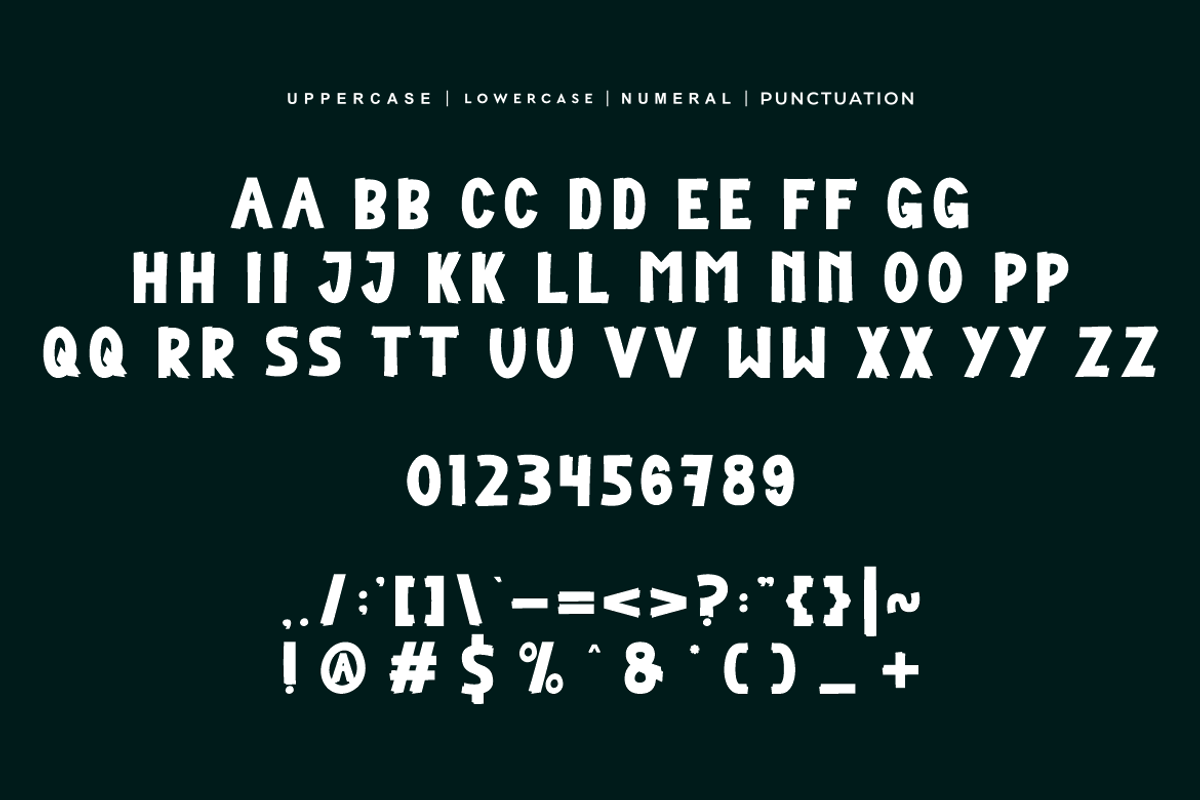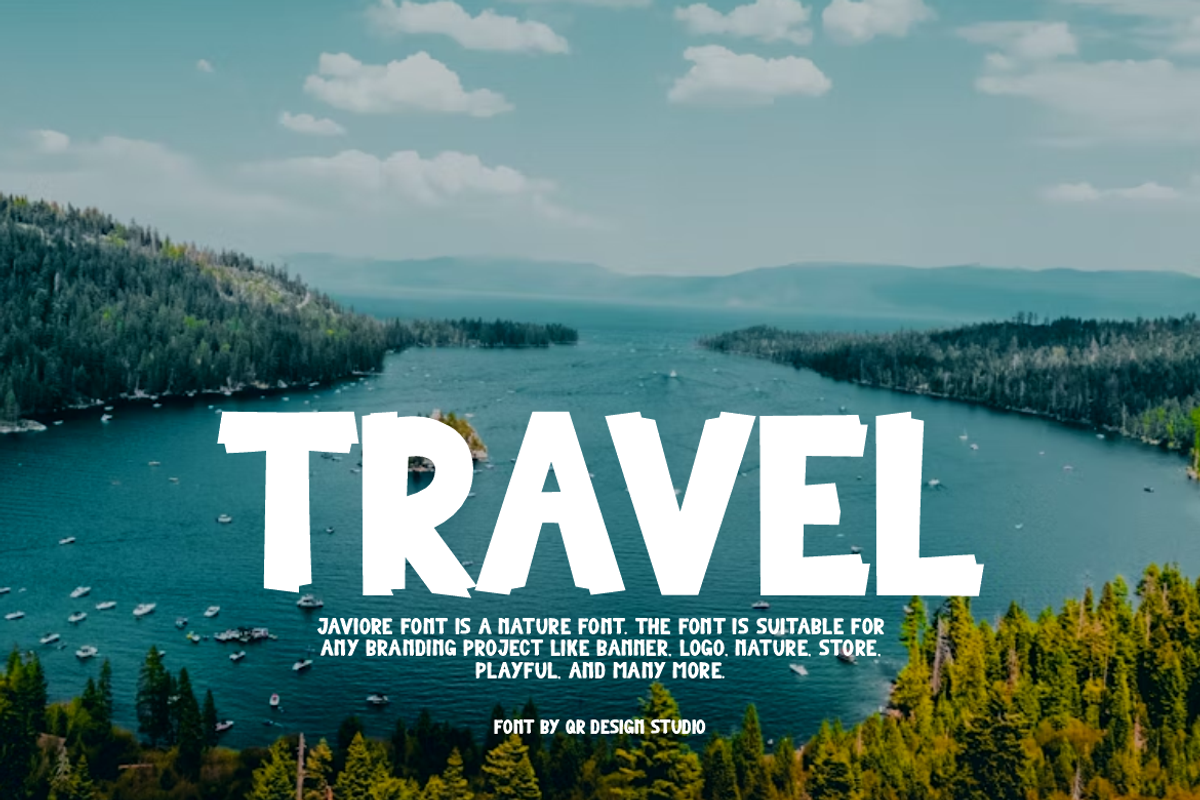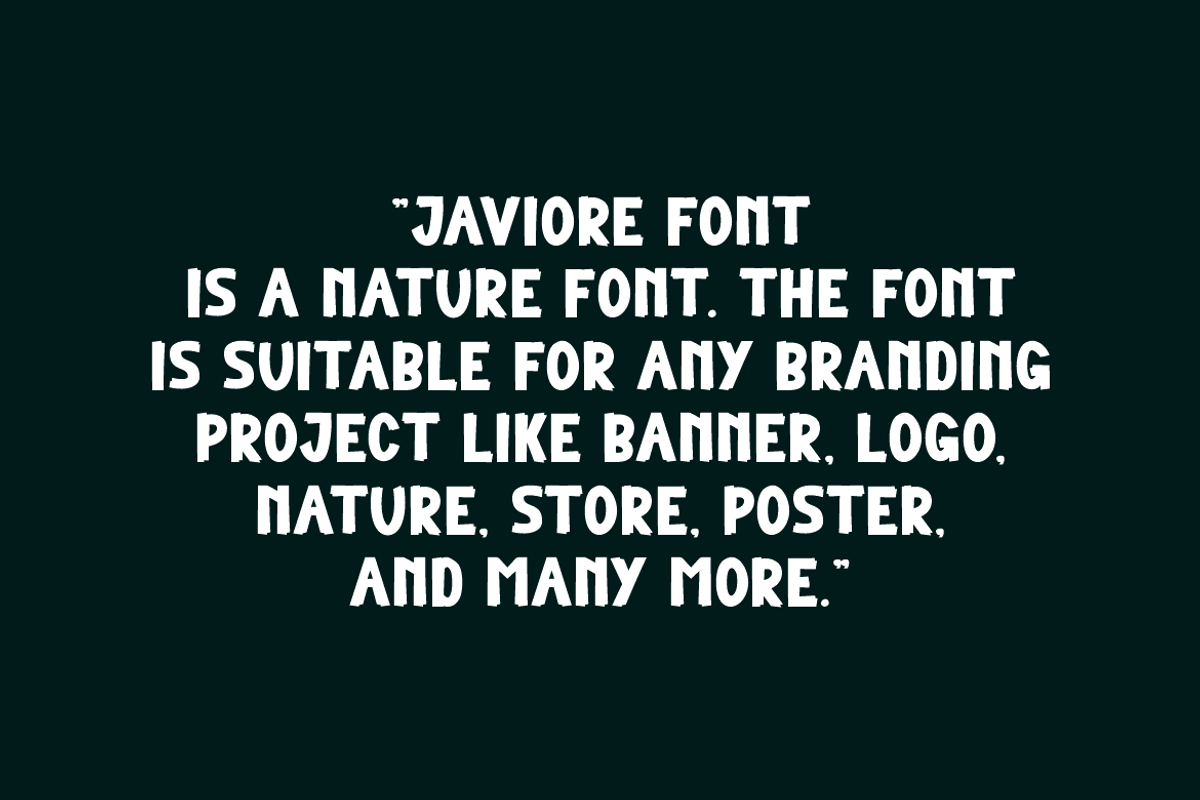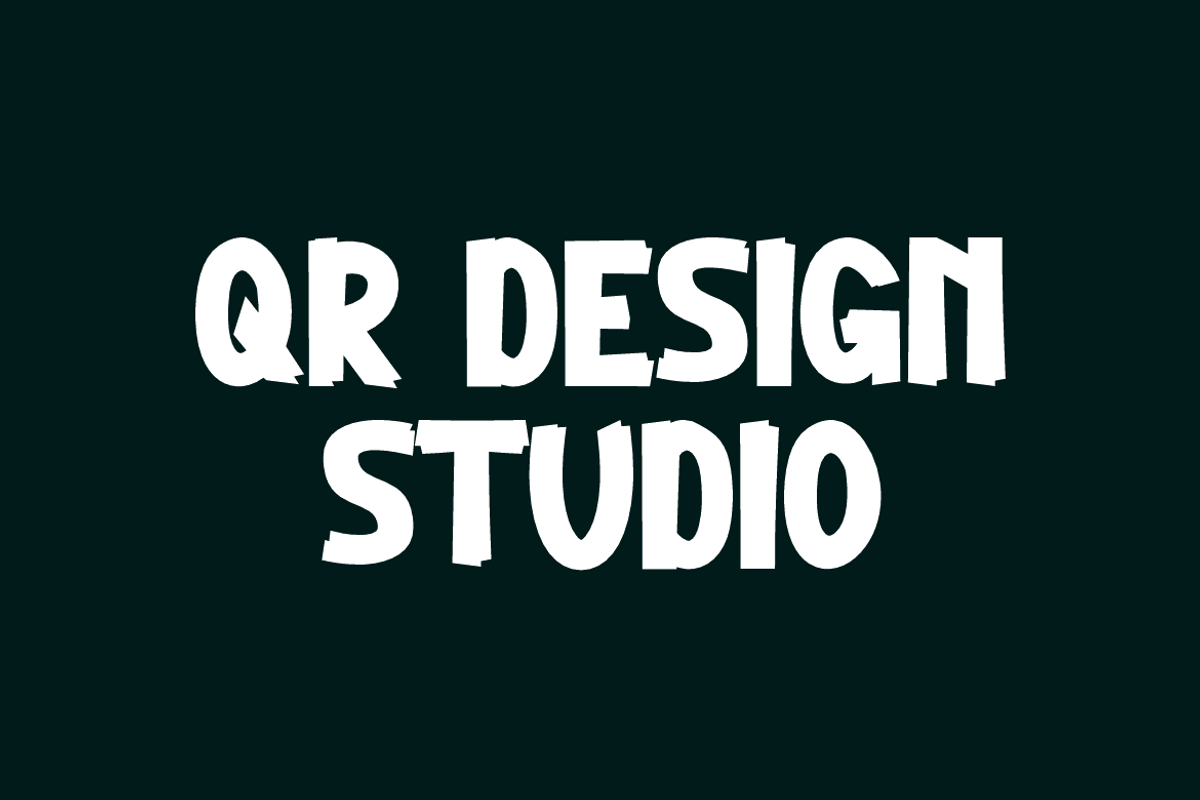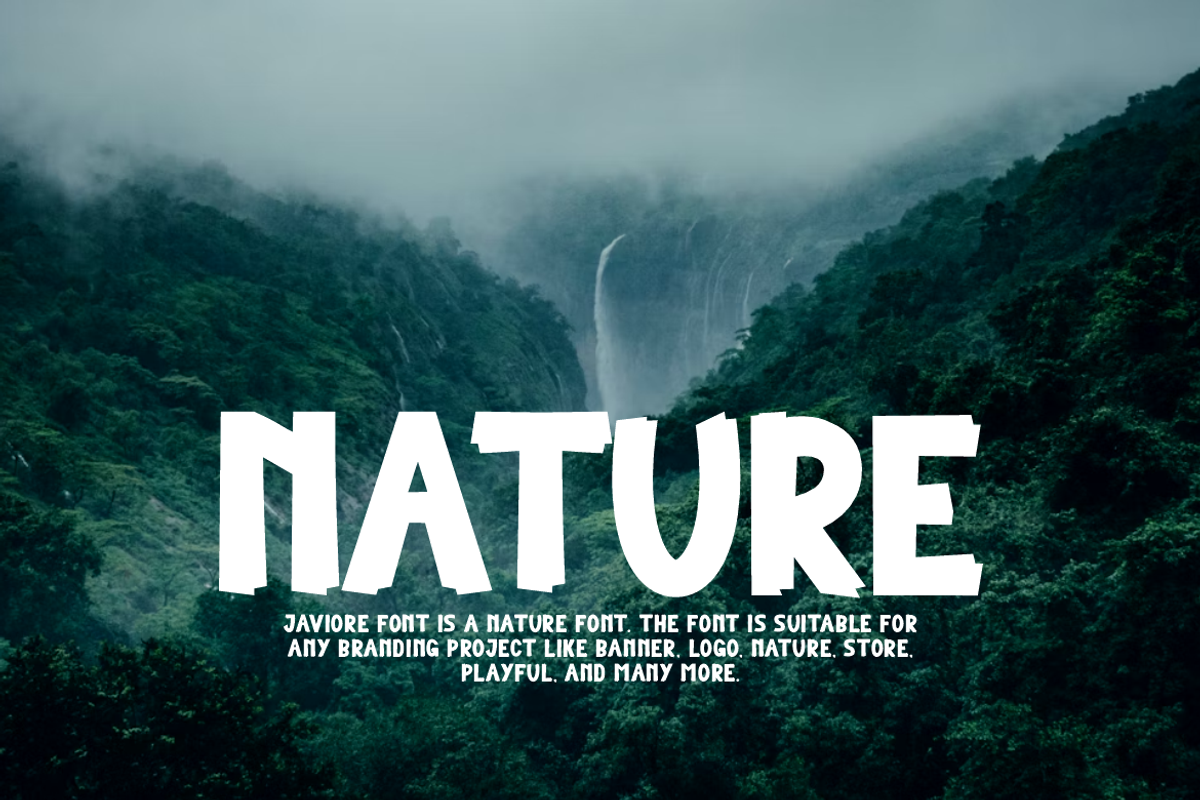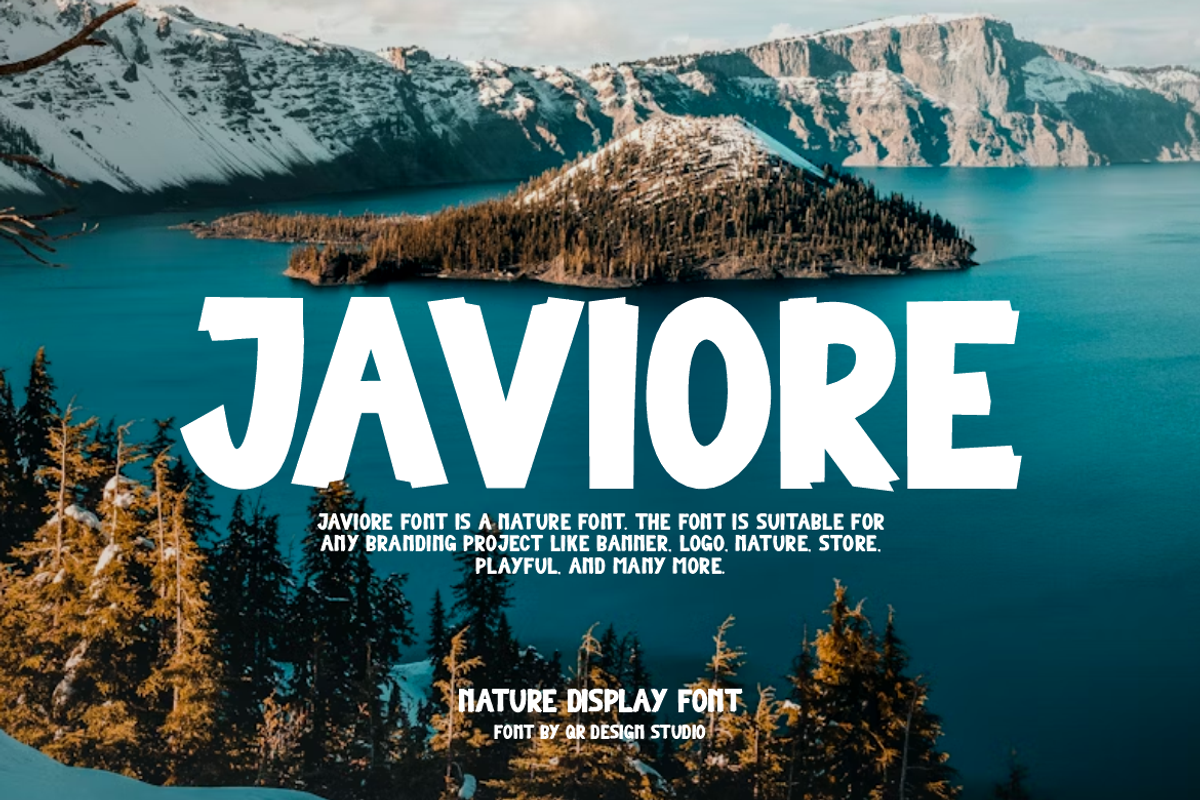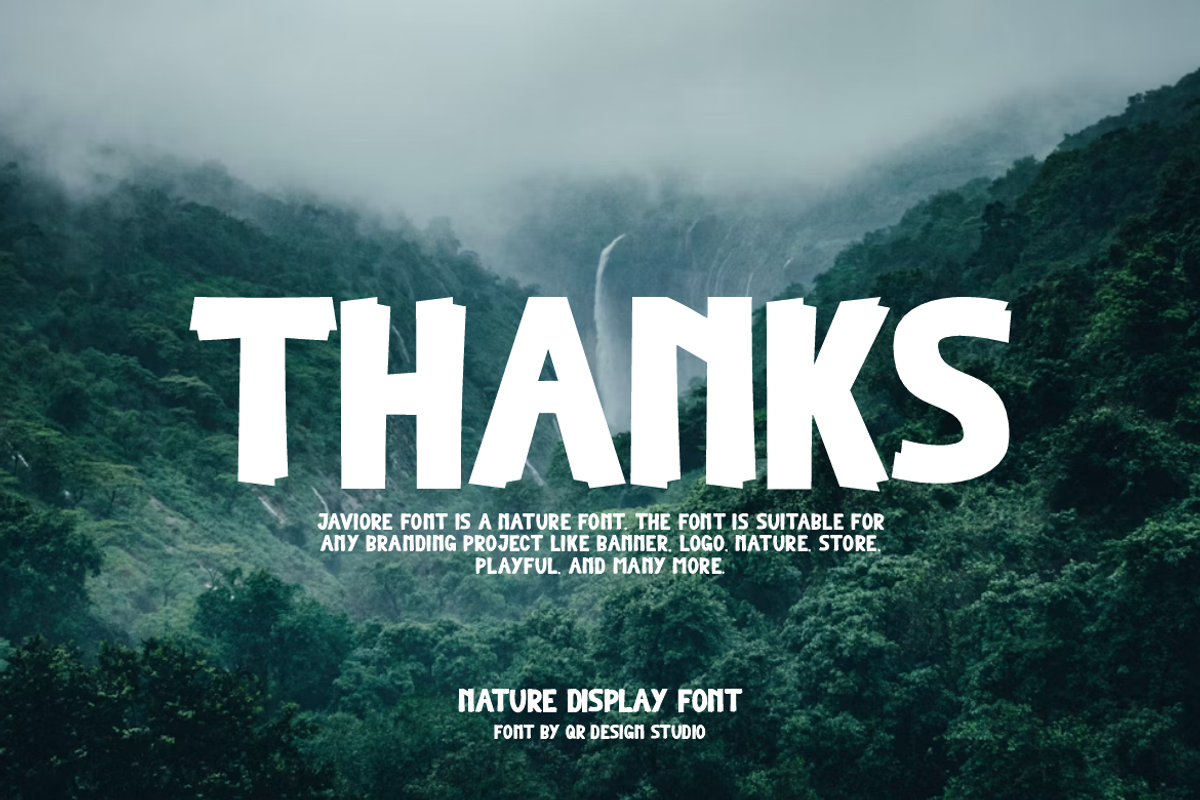
Javiore - Nature Font
Javiore Font is a nature and authentic display font. The font is suitable for any branding project like poster, logo, nature, and many more. Outstanding in a wide range of contexts.